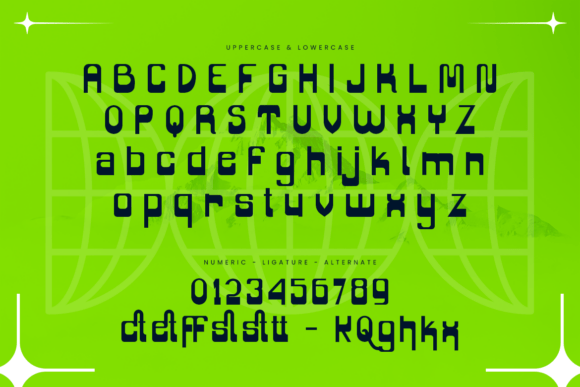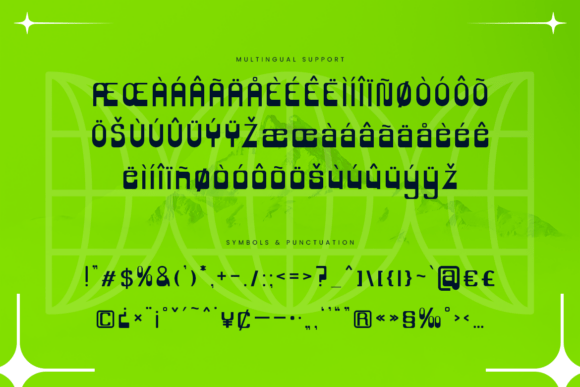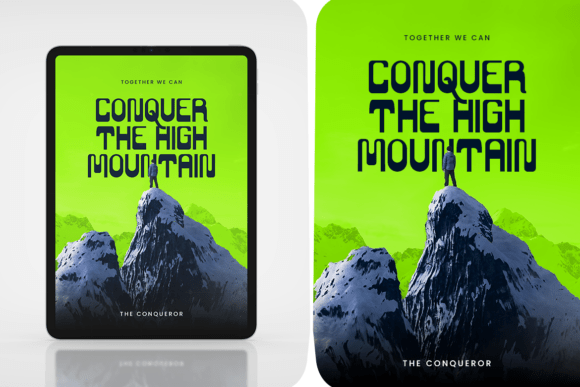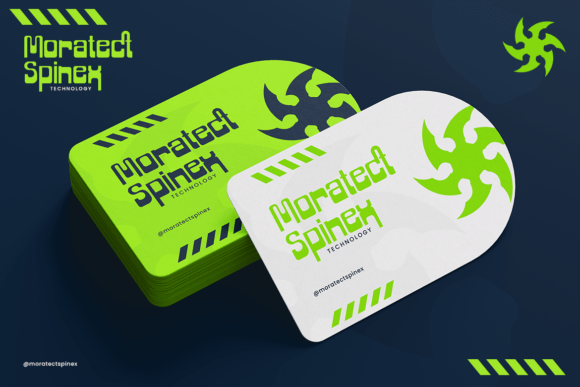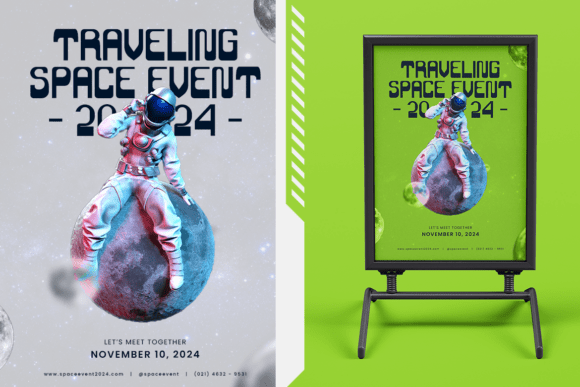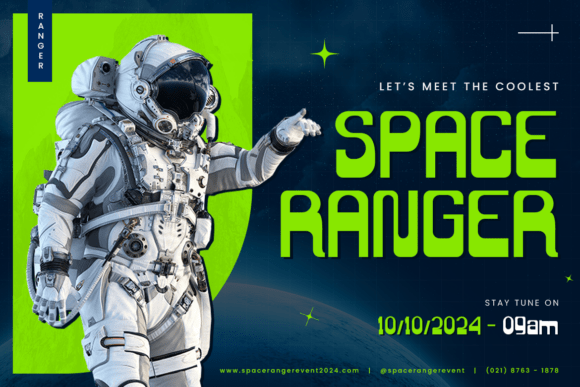
Unleashing Creativity with Maction Font
Have you ever found yourself staring at a blank canvas, struggling to find the perfect font to bring your futuristic design to life? I know I have. That’s when I stumbled upon the Maction Font – a game-changing display typeface that’s been a total game-changer for my creative projects.
With its sleek, geometric letterforms and rounded techno-inspired shapes, the Maction Font is the perfect design resource for any project that needs a touch of modernity and innovation. Whether you’re designing a futuristic poster, creating a high-quality logo, or working on a digital graphics project, this font is sure to elevate your work to the next level.
Key Features of Maction Font
- Includes a range of glyphs and characters to suit various design needs.
- Designed to be versatile and adaptable, suitable for a wide range of creative applications.
Honest Review: Maction Font
I recently stumbled upon the Maction Font, and I must say it’s been a game-changer for my design projects. As a designer, I’m always on the lookout for high-quality design resources to enhance my creative work.
Here’s what I like about the Maction Font:
- ✨ High-quality glyphs and characters that are perfect for headings and titles.
- ⚠️ The font doesn’t come with a wide range of styles or variations, which can limit its versatility.
Overall, the Maction Font is a solid addition to any designer’s toolkit. While it may not be perfect, its high-quality design and free download make it a great resource for creative projects. I’d definitely recommend giving it a try, especially if you’re working on a design project that requires a clean and modern look.
Common Use Cases for Maction Font
Maction Font is suitable for a wide range of design projects, including logos, typography-based designs, and presentations. Its high-quality design and transparent background make it perfect for any creative project.
Alternatives to Maction Font
Montserrat is a high-quality sans-serif font ideal for creative projects that require a modern and sleek design. It features a clean and geometric design, making it perfect for digital design resources and websites. Montserrat is available for free download and can be used for both personal and commercial projects. When to use: digital design, websites, and mobile applications. How it compares to Maction Font: Montserrat has a more geometric design, whereas Maction Font has a more rounded look.
Open Sans is a popular and versatile font that is widely used in design resources and creative projects. It features a clean and friendly design, making it perfect for a wide range of applications. Open Sans is available for free download and can be used for both personal and commercial projects. When to use: print design, digital design, and presentations. How it compares to Maction Font: Open Sans has a more traditional design, whereas Maction Font has a more modern look.